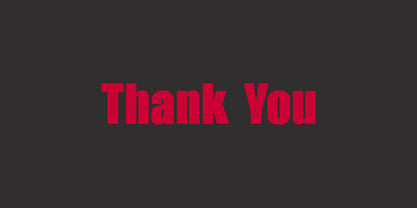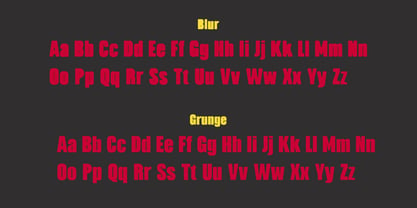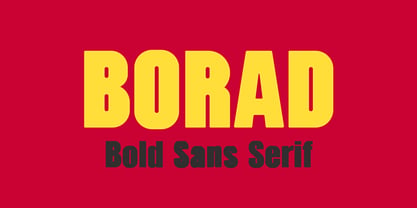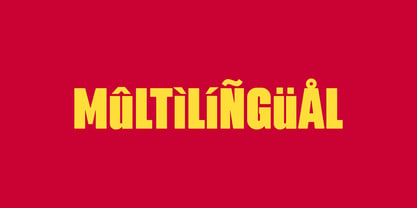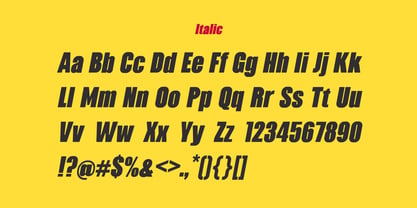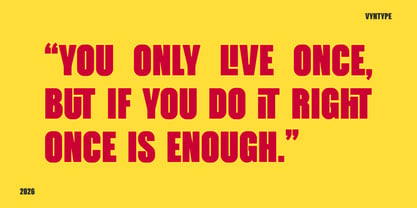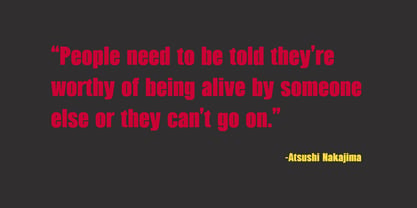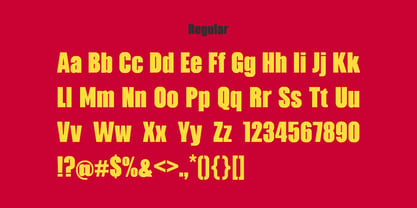
Borad
by Vyantype Studio
The Borad Font Family was designed by Hero Novyanto and published by Vyantype Studio. Borad contains 4 styles and family package options. More about this family
Borad is a high-impact, bold sans-serif typeface designed for those who want their message to resonate as much as it is read. Built on a foundation of geometric stability and robust strokes, it commands attention while maintaining modern sophistication. Borad’s versatility is showcased through its four distinct "personalities," each tailored for specific emotional tones: Regular (Bold) features clean, rounded edges with substantial weight and solid fills; Italic offers a dynamic, forward-leaning slant that injects kinetic energy; Grunge presents "eroded" textures and distressed edges that evoke industrial decay; and Blur incorporates softened edges with a "bleeding" effect, creating a sense of motion or mystery. This typeface is ideal for branding, packaging, and user interfaces, making it a standout choice for impactful design, editorial projects, and digital applications.